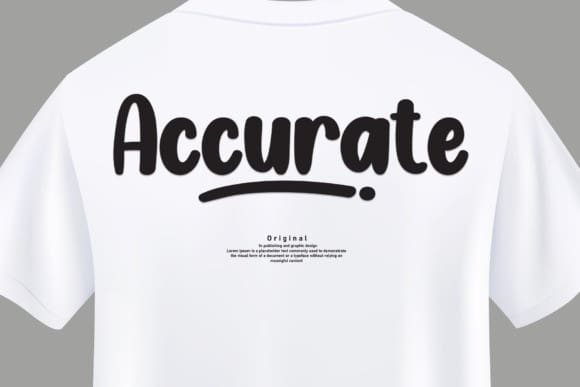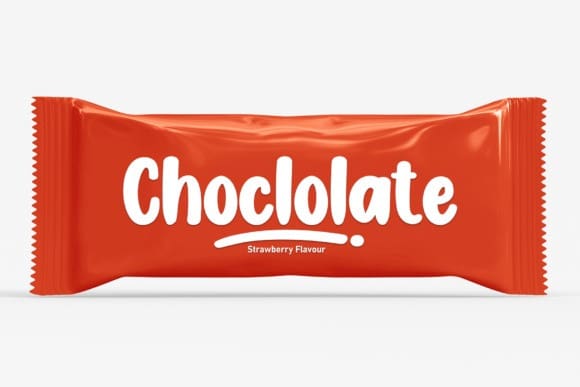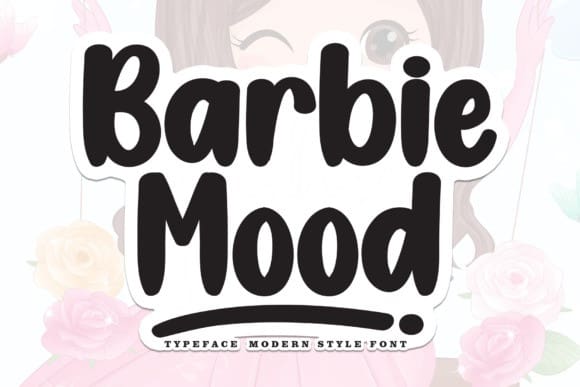
Barbie Mood Font
Barbie Mood Font is an exquisite handwritten font, masterfully designed to become a true favorite. It maintains its classy calligraphic influences while feeling contemporary and fresh. Fall in love with it and bring your projects to the highest levels!